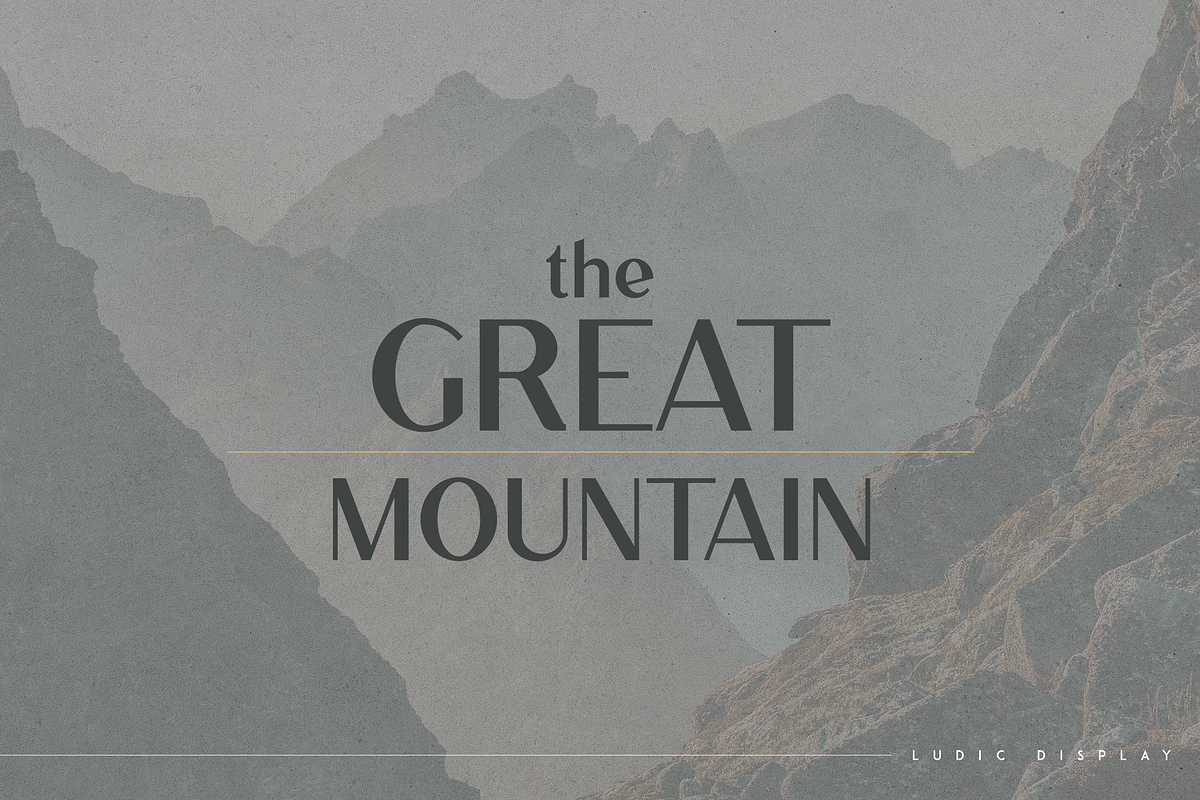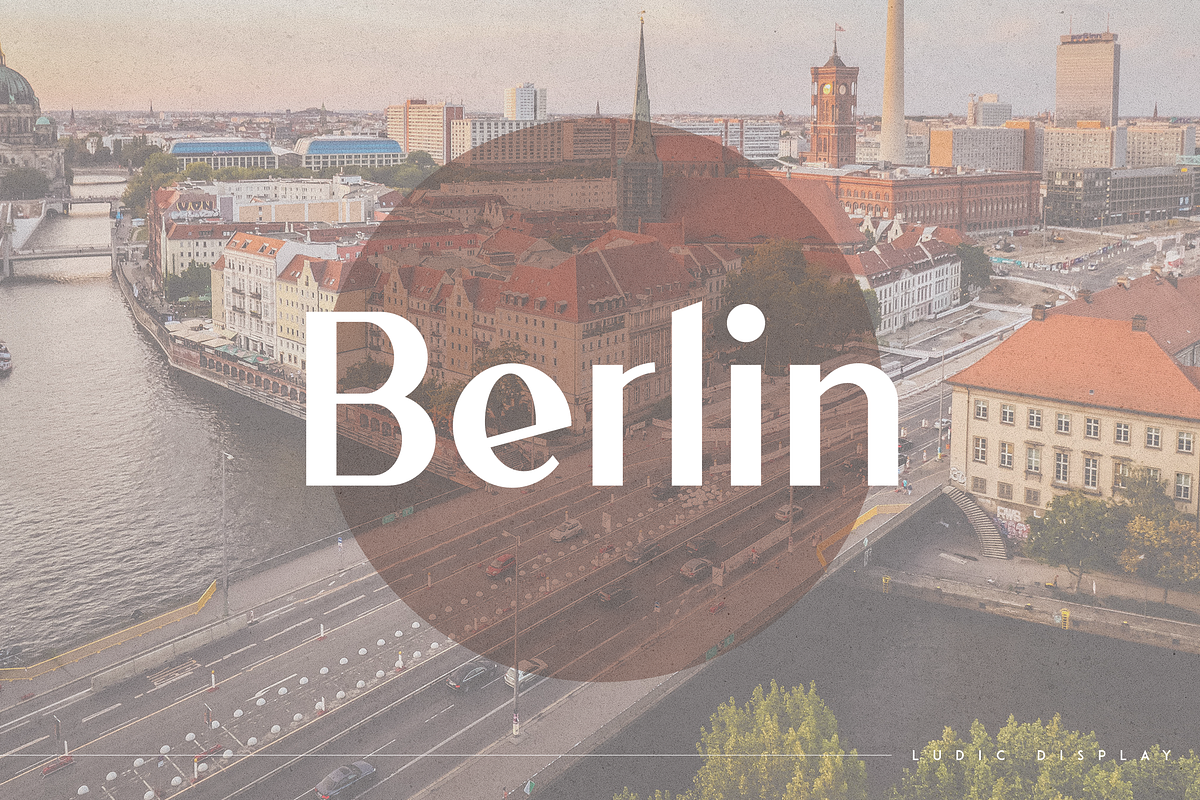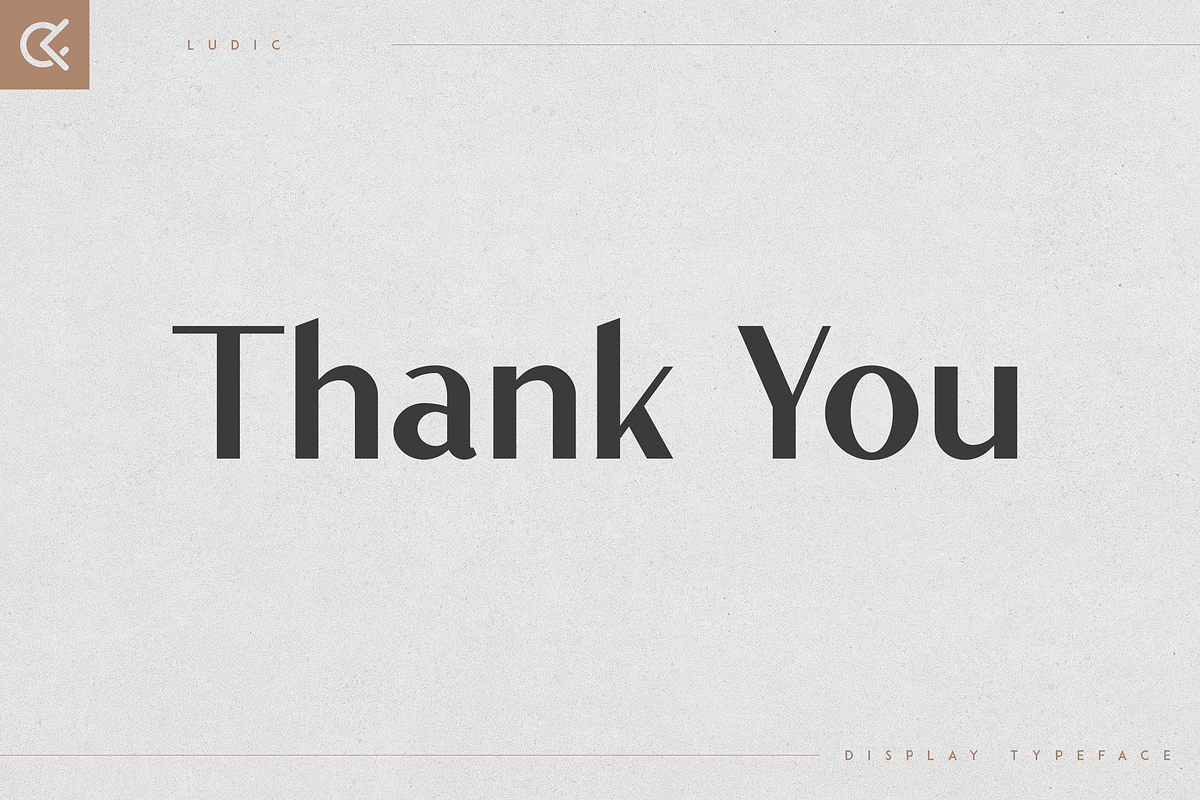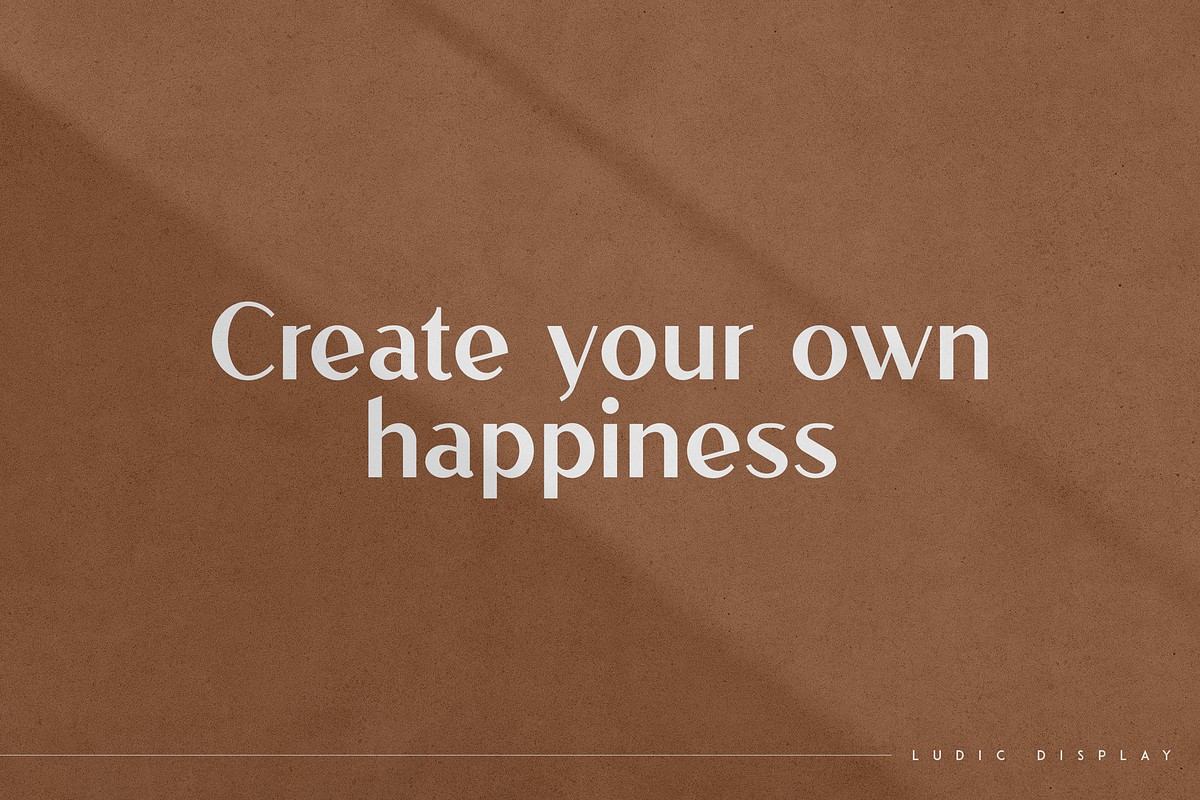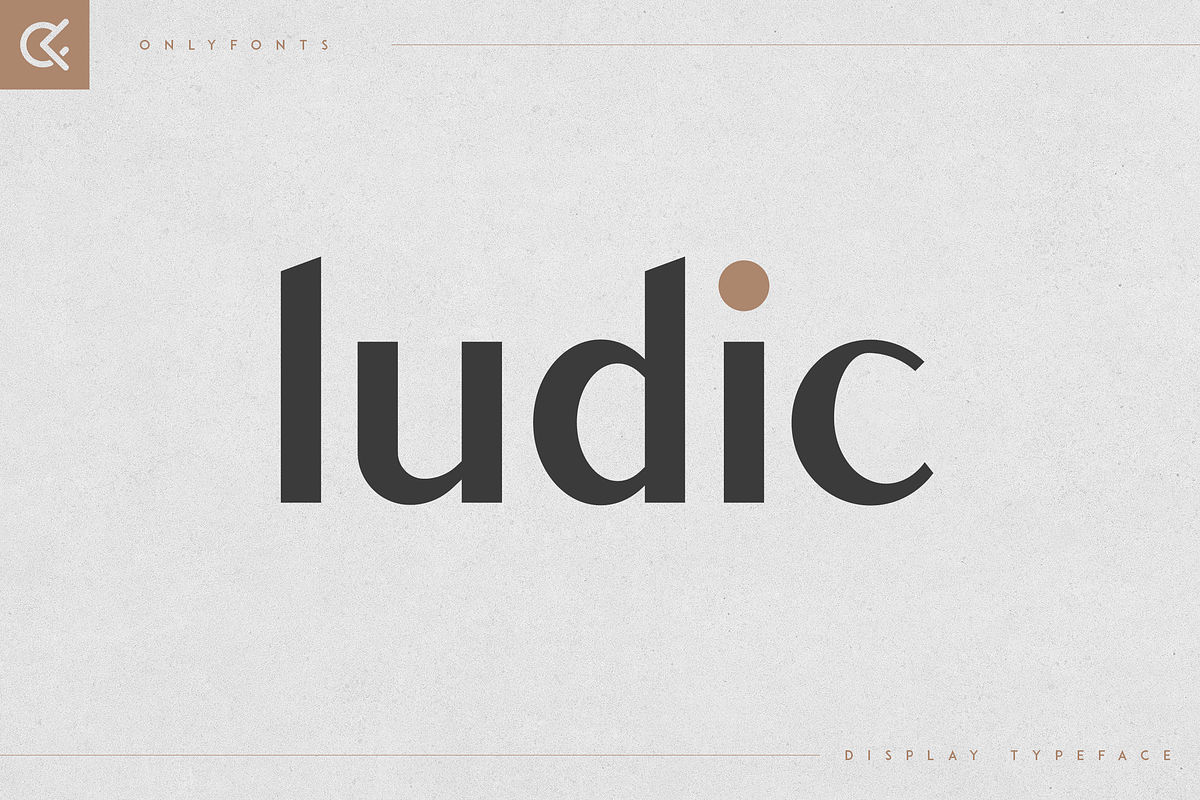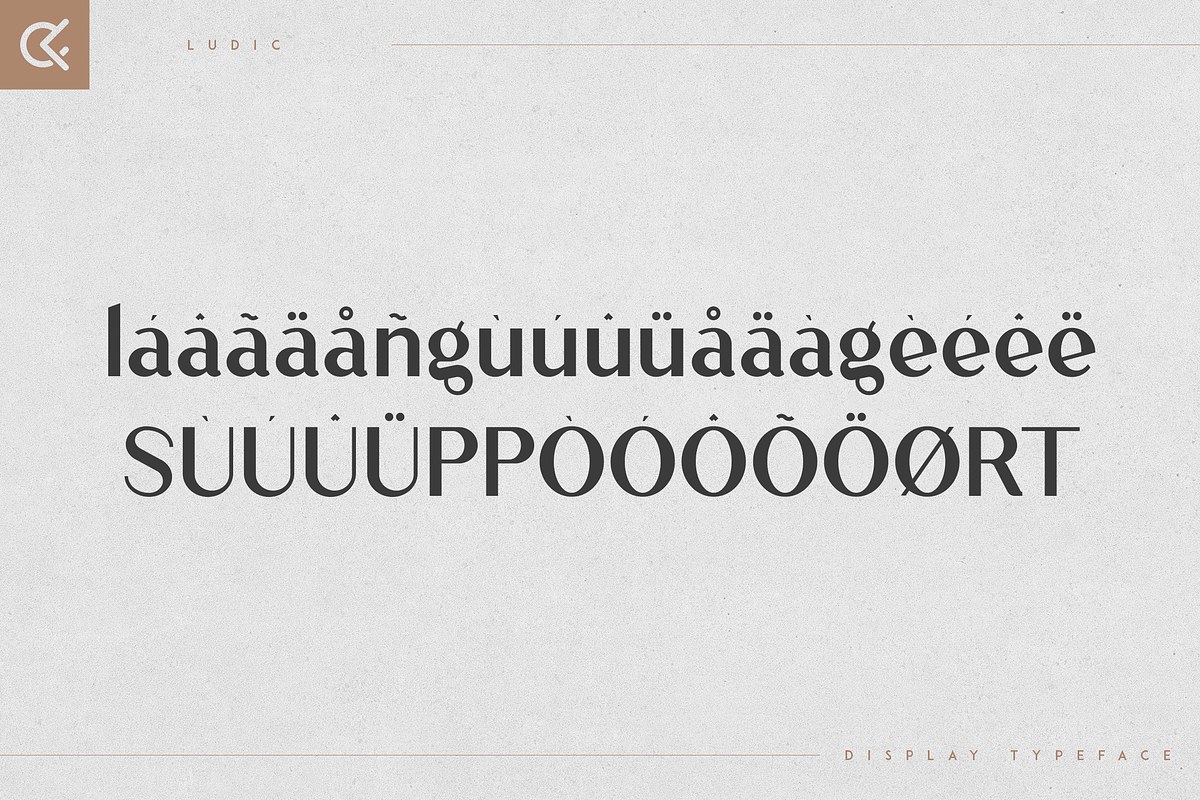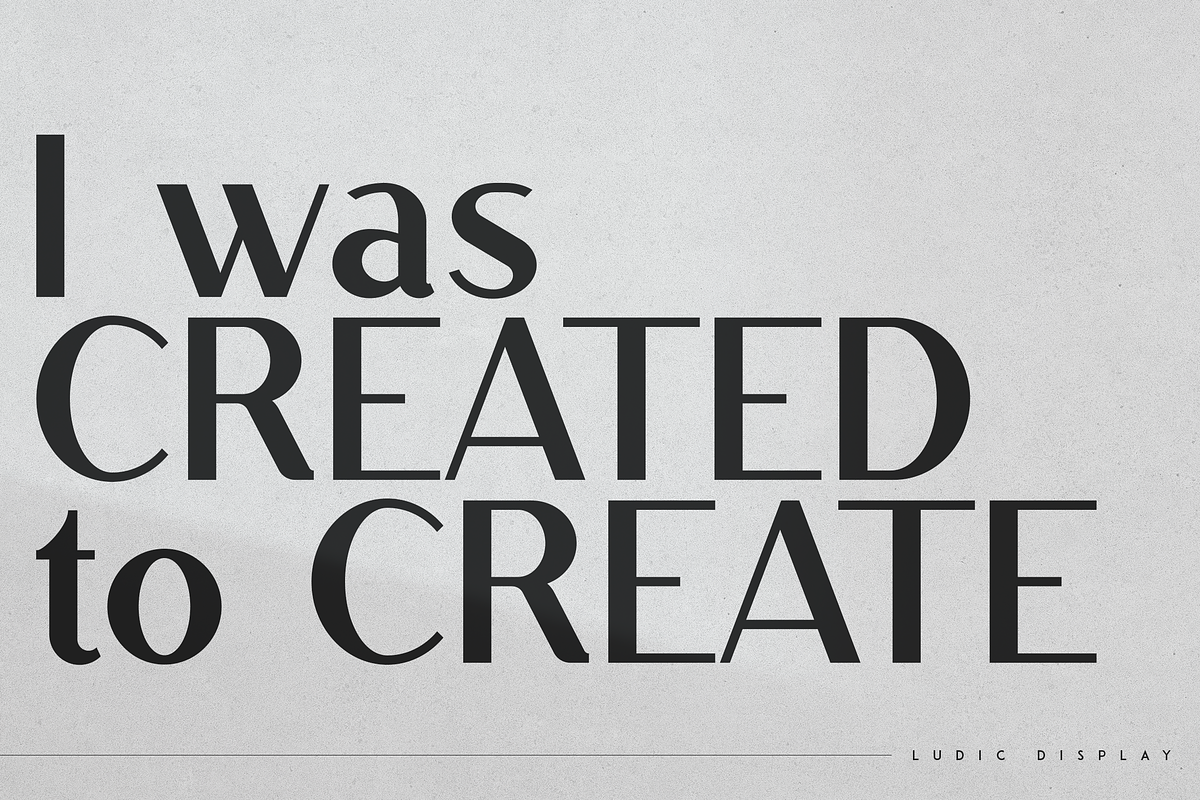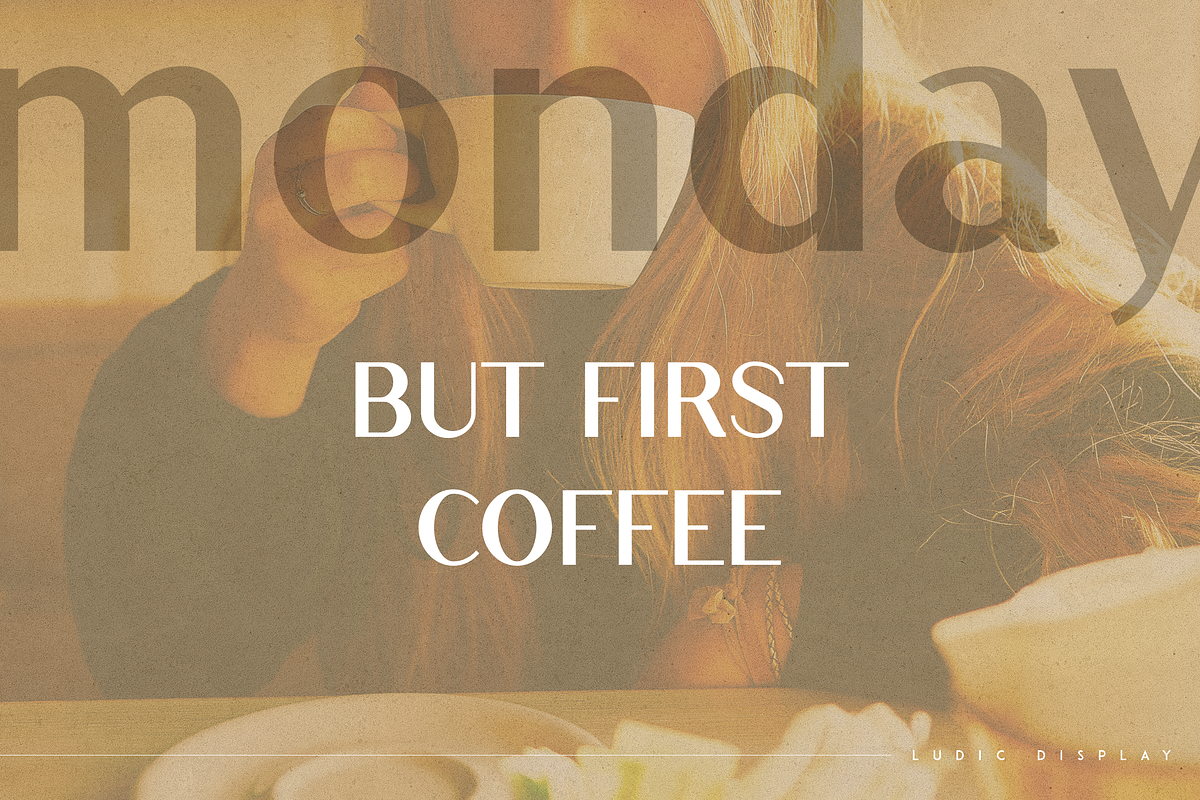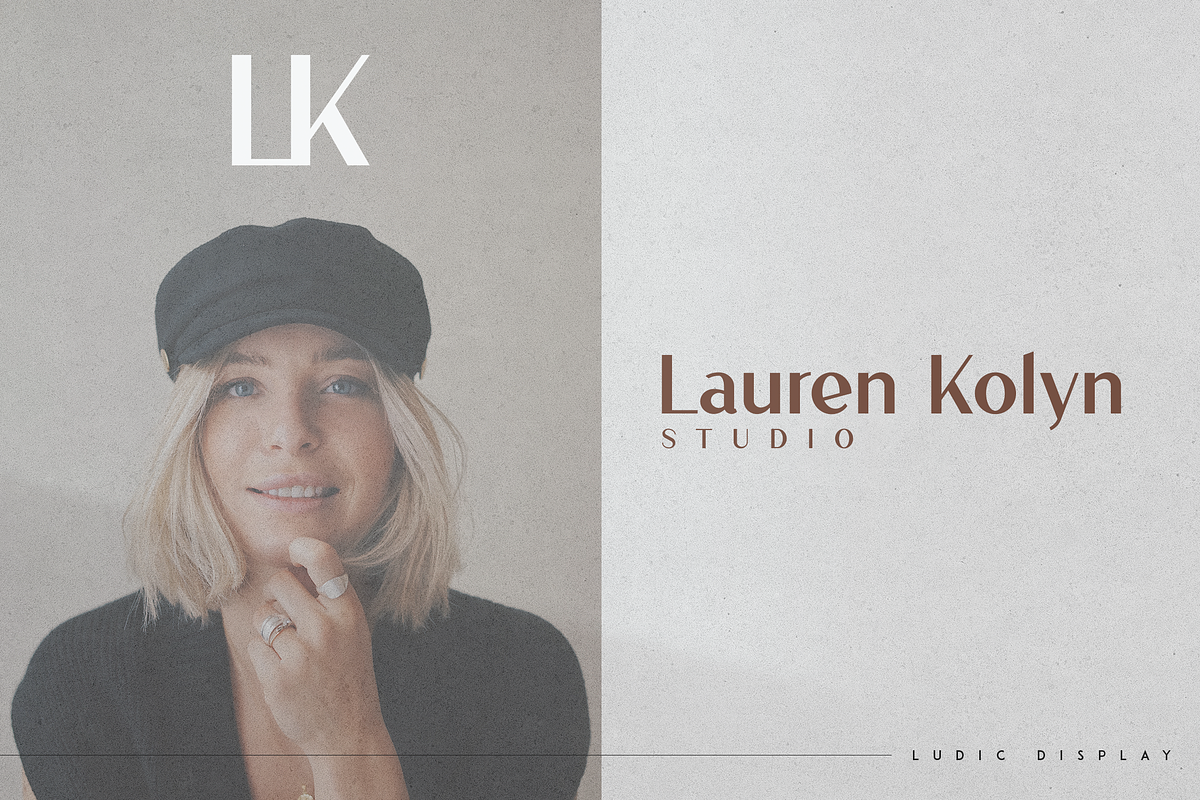
Ludic - Display Vintage Font
Introducing Ludic - Display Vintage Font
Ludic is vintage and bold font with multilingual support. It's a very versatile font that works great in large and small sizes.
Ludic is perfect for branding projects, home-ware designs, product packaging, magazine headers - or simply as a stylish text overlay to any background image.